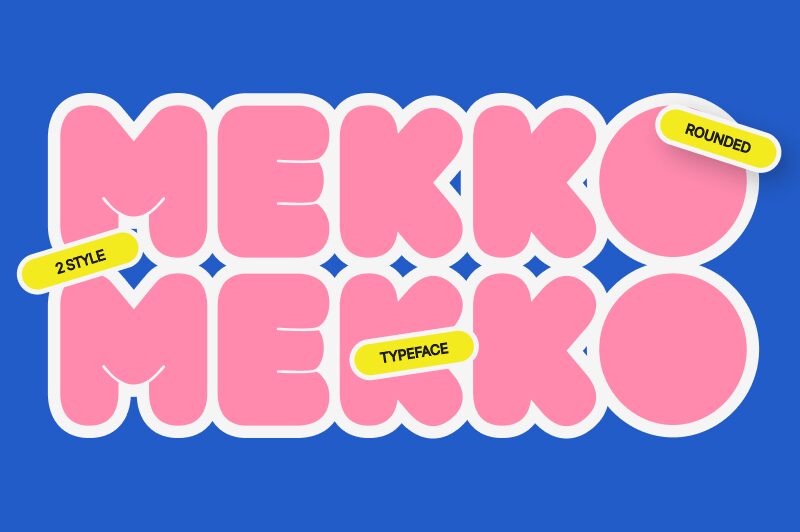
Mekko font, crafted by Fitrah Type, stands out with its bold and groovy display style. This free font makes a striking visual impact, ideal for projects that demand attention and creativity. The exaggerated curves and strong presence make Mekko perfect for branding, posters, and any design that seeks to exude a retro yet modern vibe.
Its unique characteristics are not just for show; they're designed to enhance readability while giving your text a playful edge. Whether you're looking to download a new font for your next big project or simply want to explore creative typography options, Mekko offers an artistic flair that's hard to ignore.
Consider this groovy font for designs where boldness is key-whether bringing life to digital platforms or adding character to print materials.